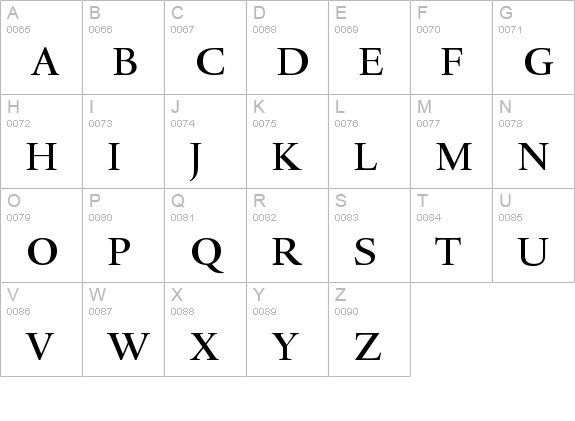
DTLHaarlemmerD-Medium is a balanced, medium-weight variant in the DTLHaarlemmerD typeface family \xE2\x80\x94 well suited to sub-headlines, navigation, and balanced editorial work.
The DTLHaarlemmerD-Medium font is a modern and versatile typeface that exudes sophistication and elegance. With its clean lines and balanced proportions, this font is perfect for a wide range of design projects, from branding to editorial layouts. Its medium weight strikes the perfect balance between readability and impact, making it a go-to choice for designers looking to create visually appealing content. What makes the DTLHaarlemmerD-Medium font even more appealing is that it is available for free download at FontsMarket.com. This means that you can easily access this high-quality font without any cost, allowing you to enhance your designs without breaking the bank. Don't miss out on the opportunity to add this stylish and versatile font to your collection today!